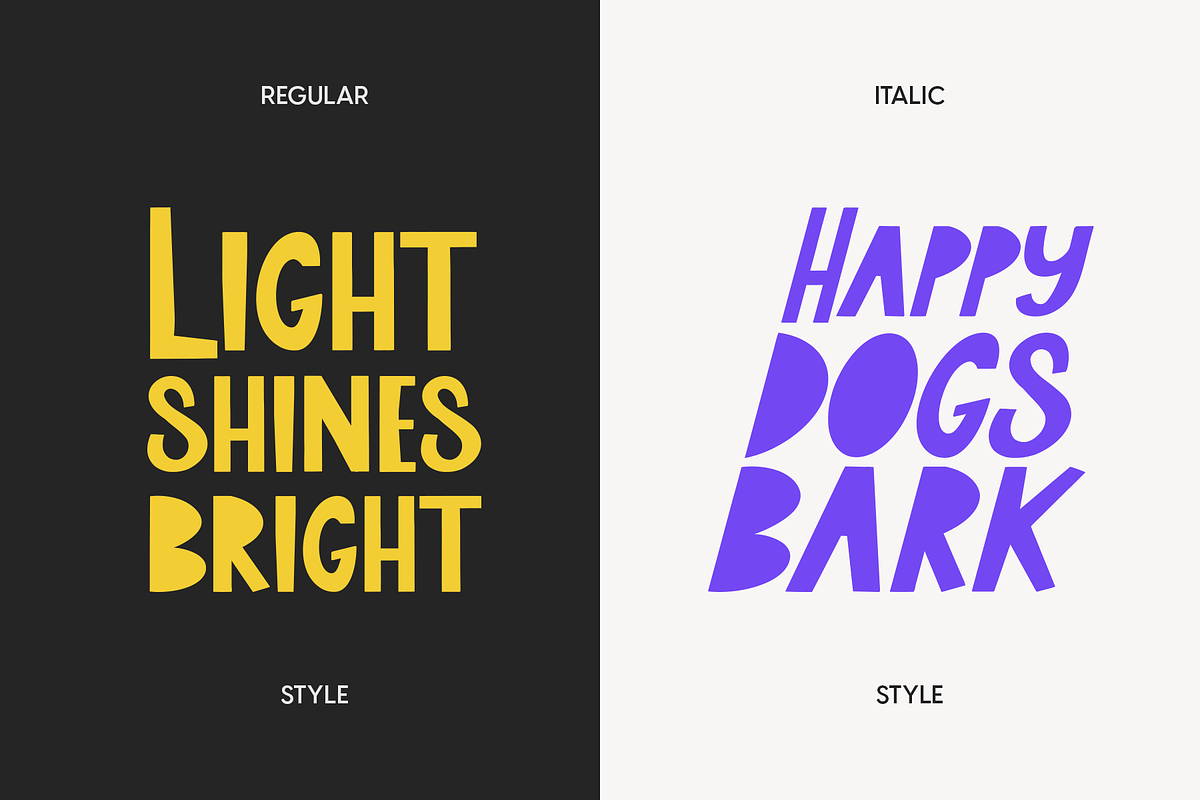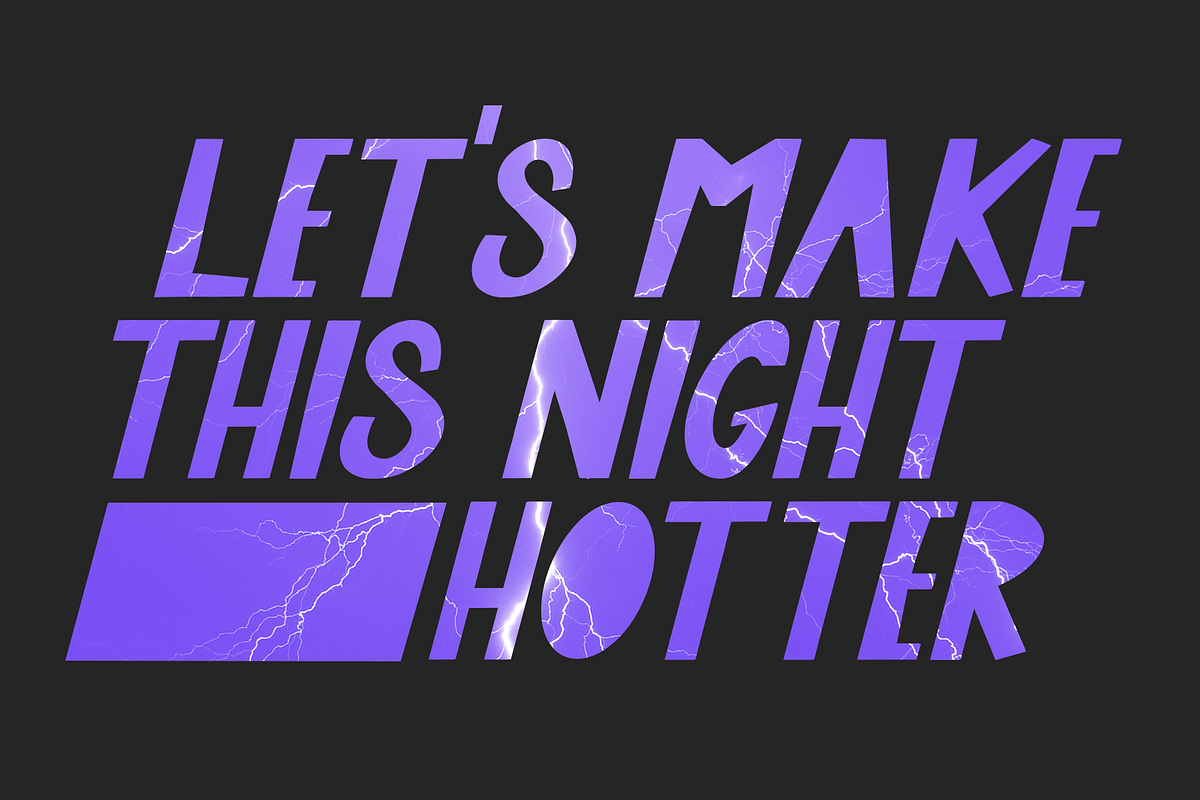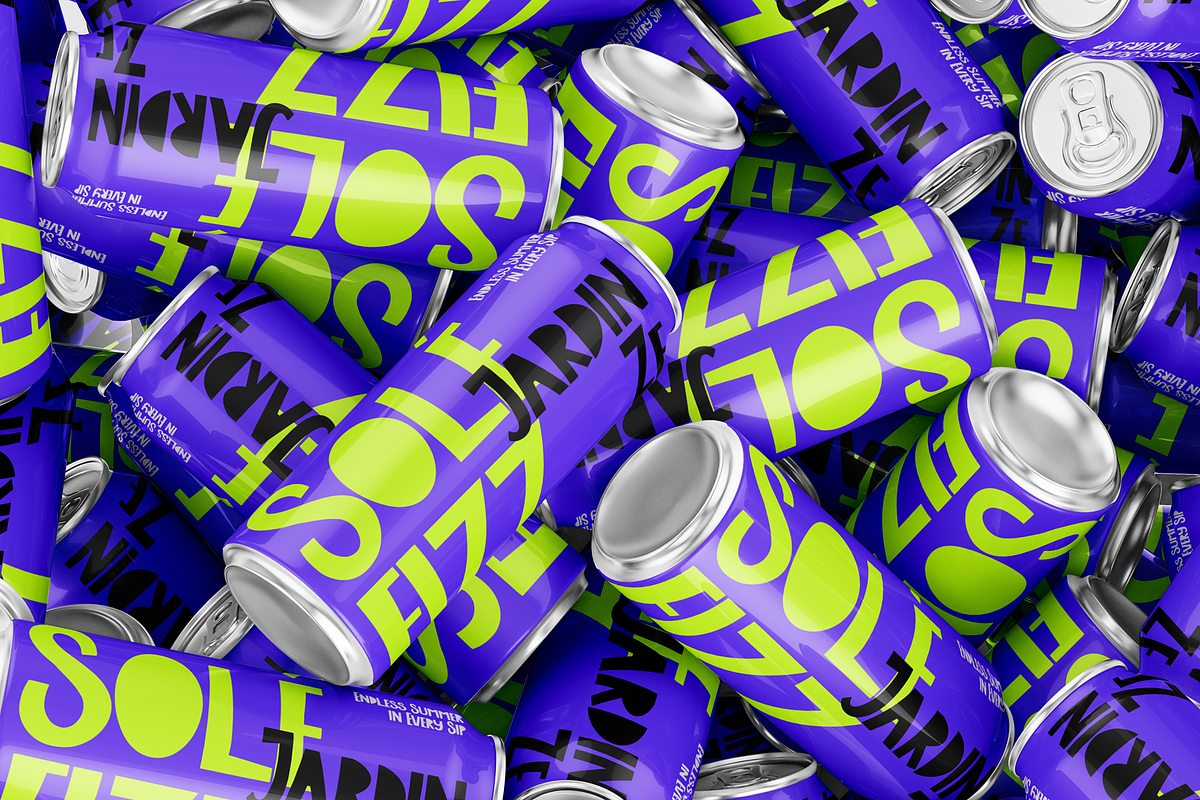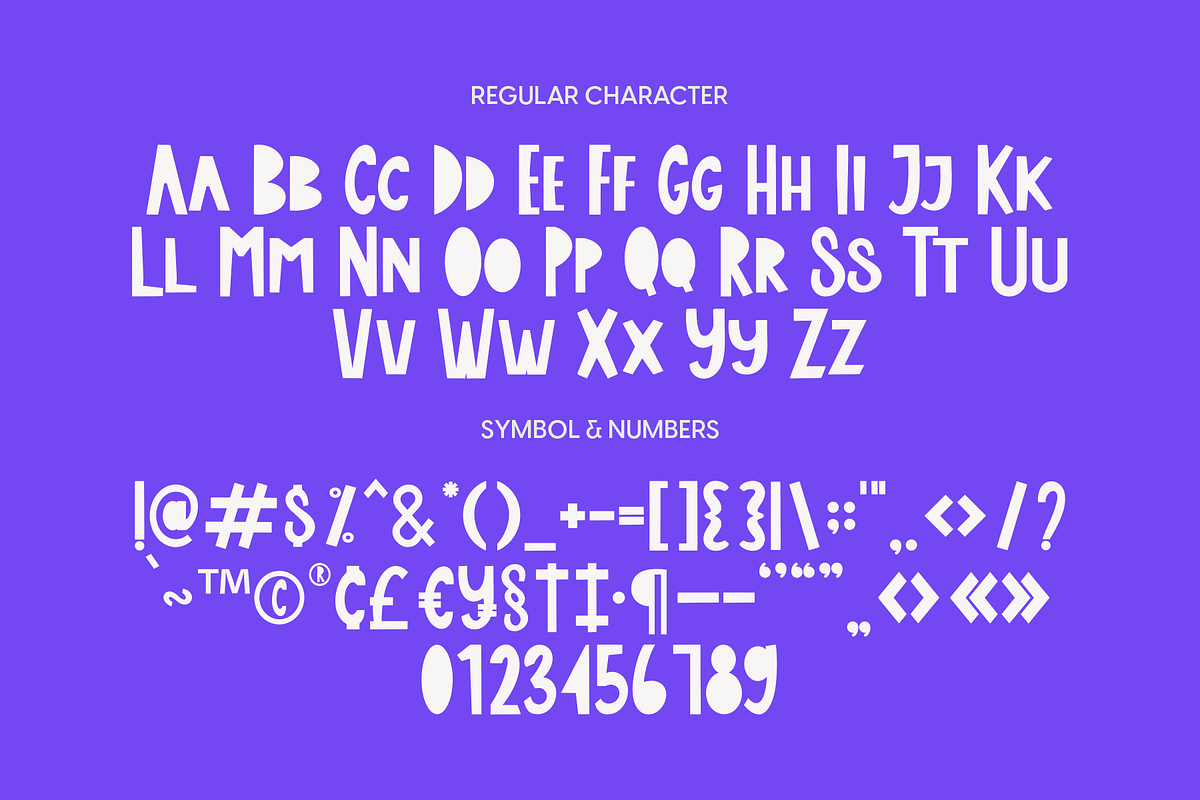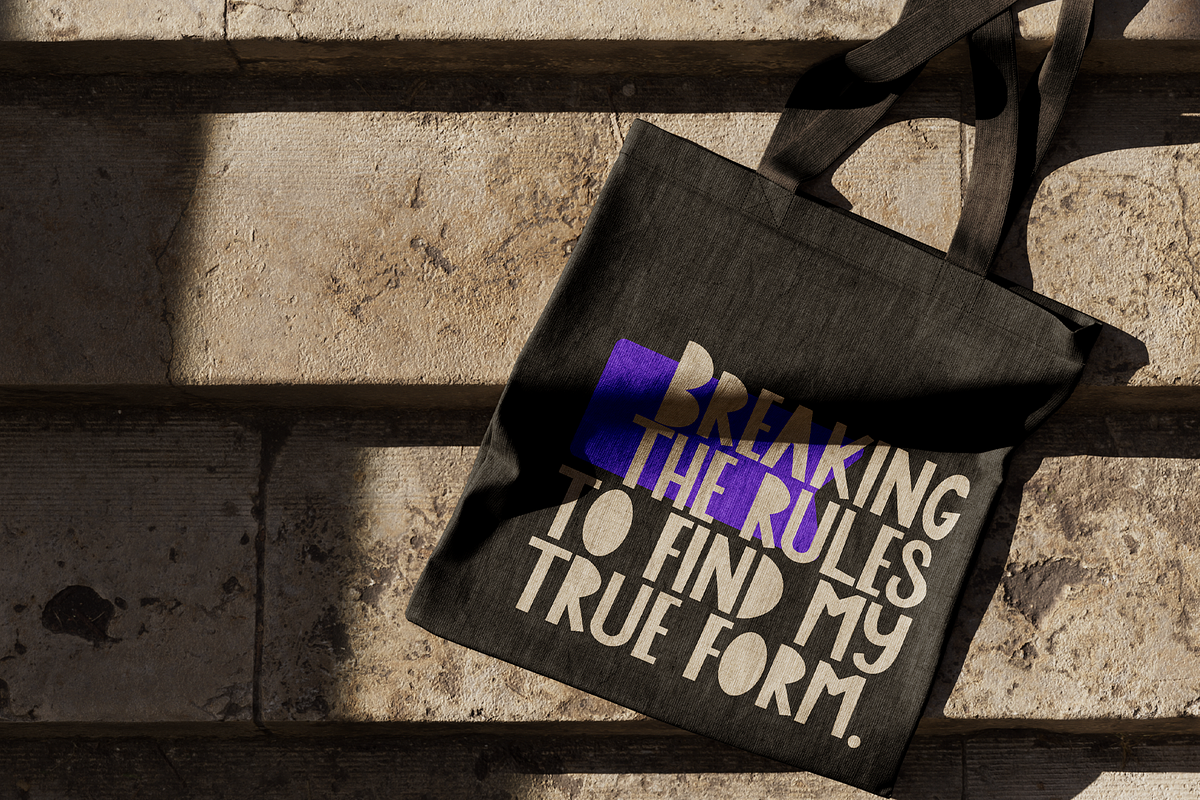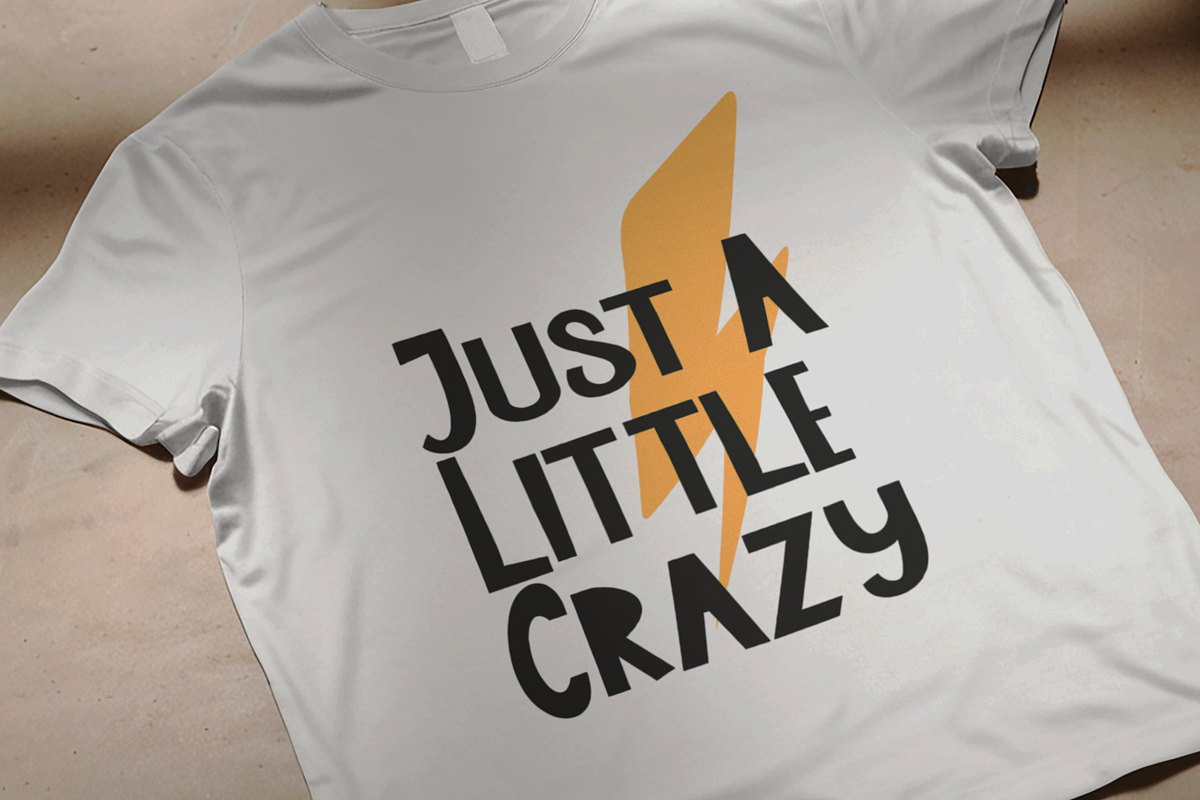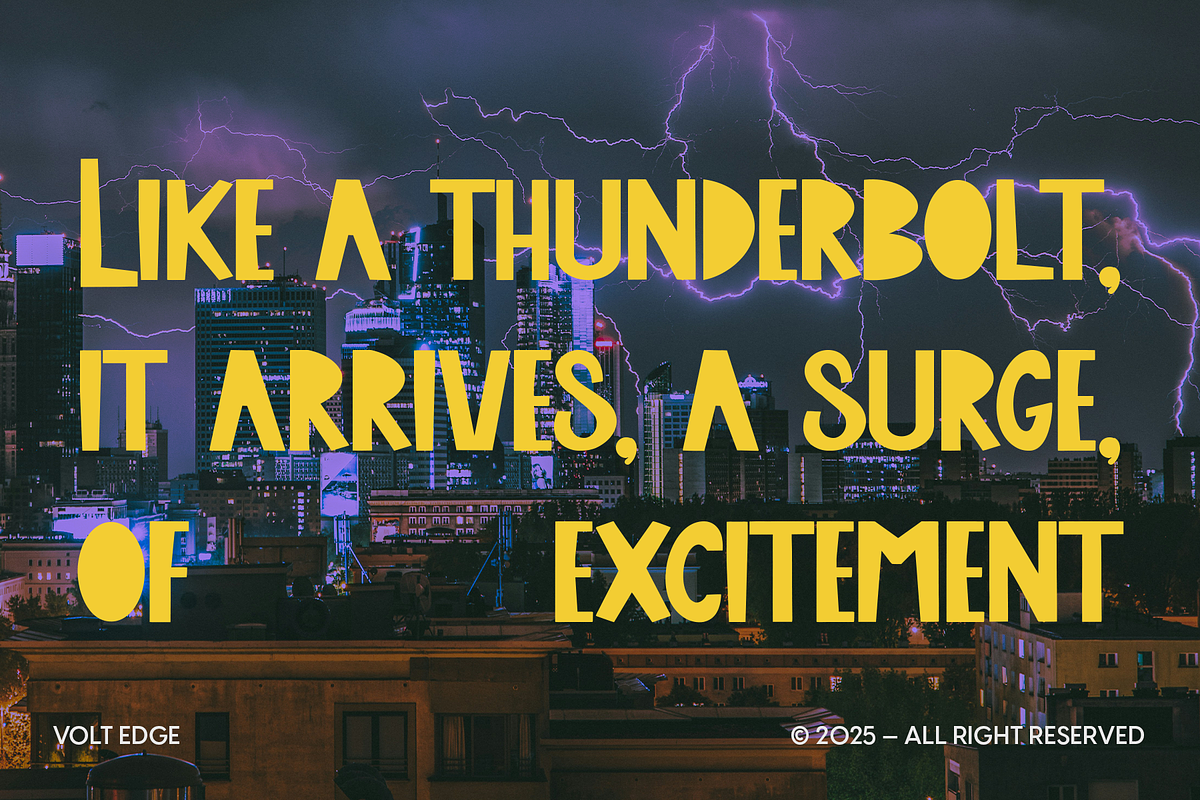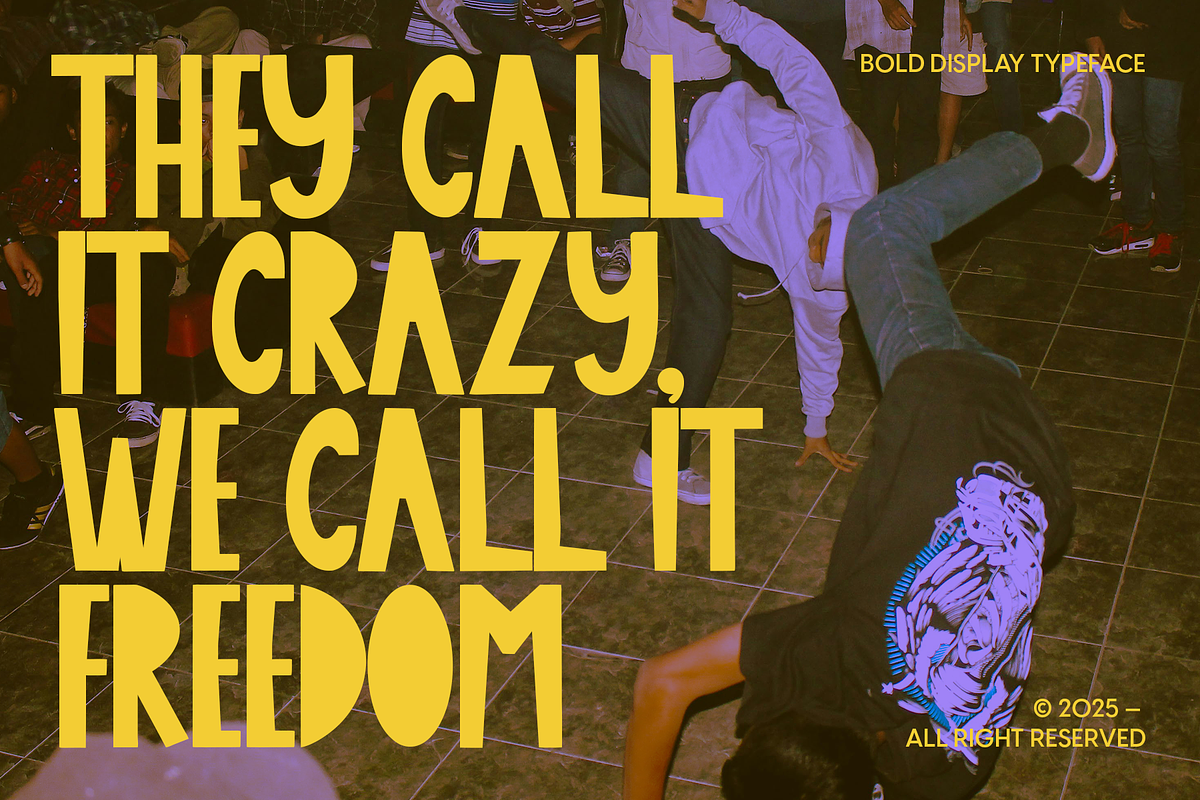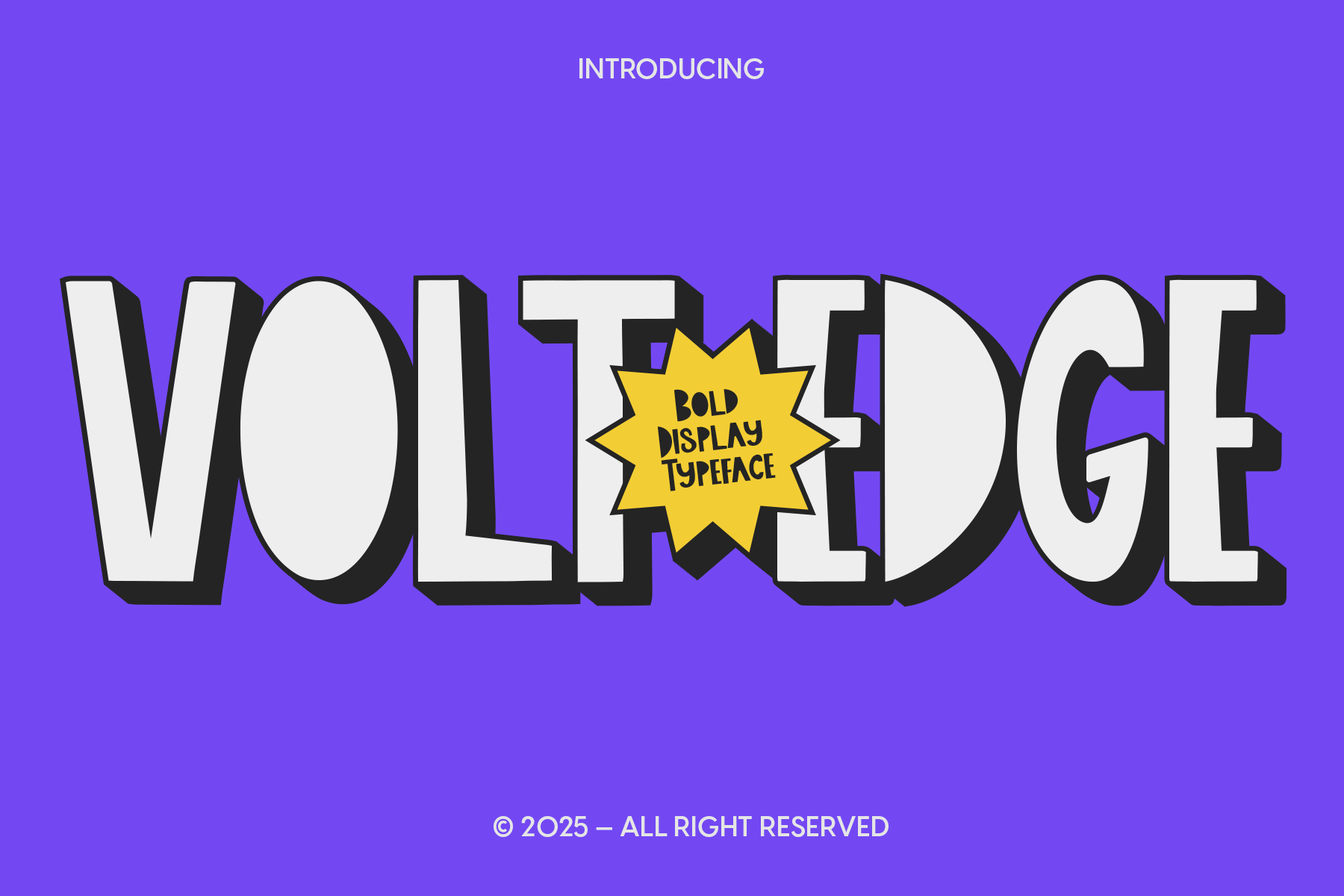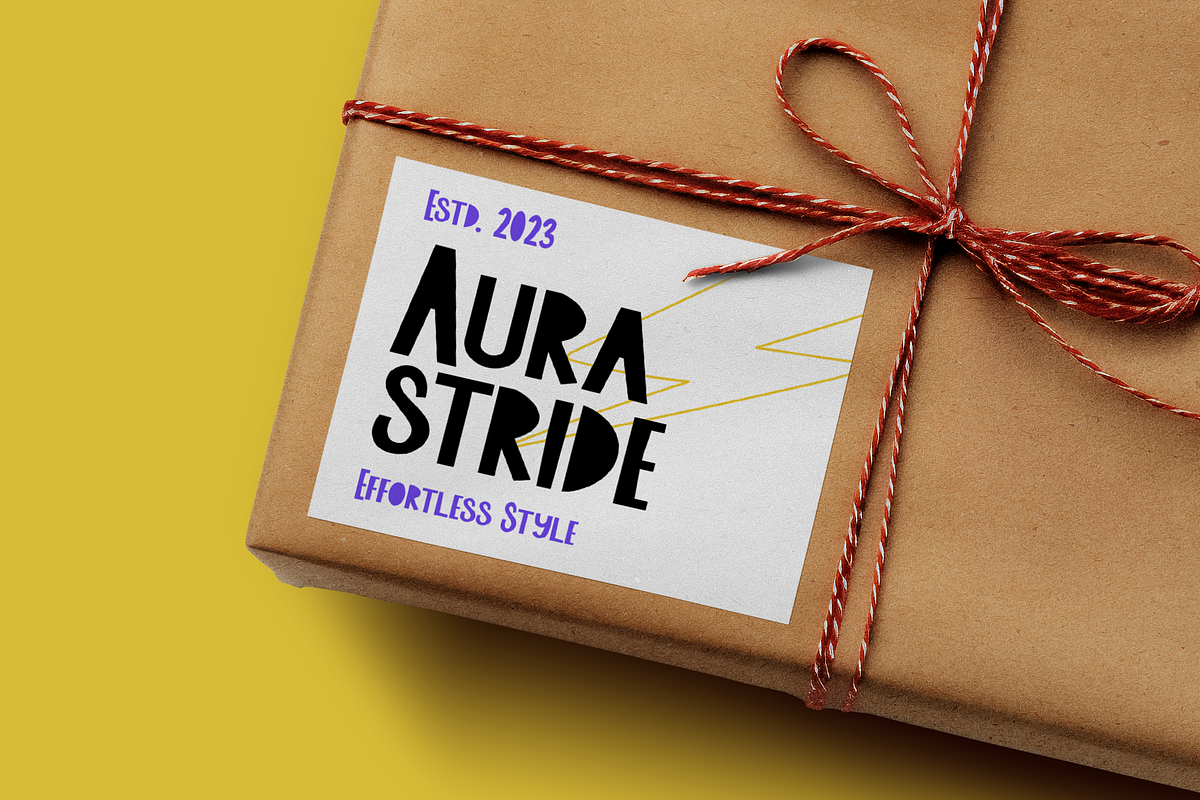
Volt Edge - Bold Display Typeface
VOLTEDGE is an electrifying bold display typeface packed with high energy and playful character. With exaggerated curves, dynamic angles, and chunky proportions, this typeface is made to stand out in loud, fun, and vibrant design contexts. It combines comic-inspired charisma with a sharp modern attitude—perfect for headlines, posters, games, branding, packaging, and social content that needs to make a bold entrance. VOLTEDGE delivers visual impact with a spark of joy.